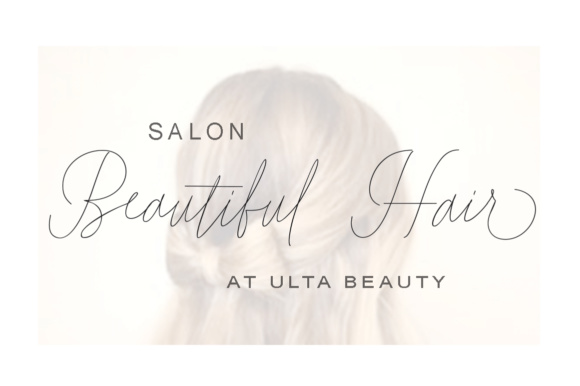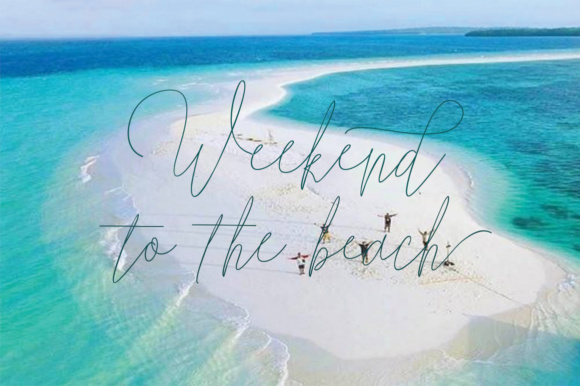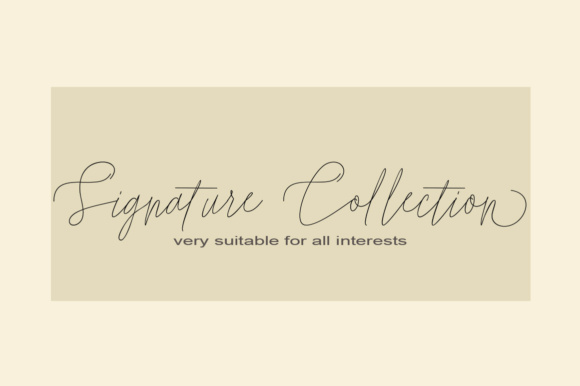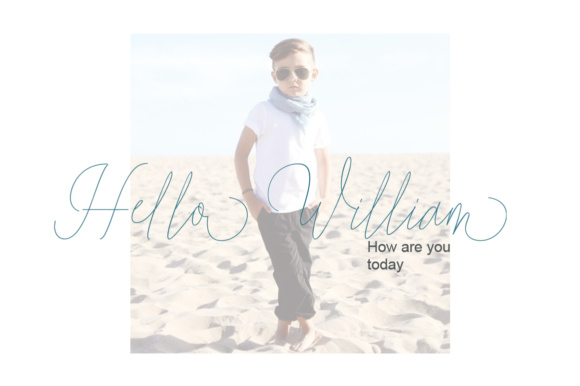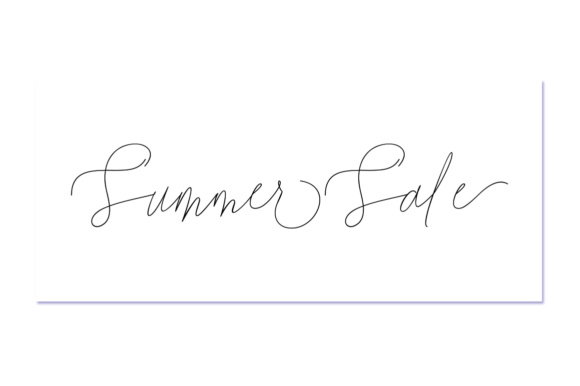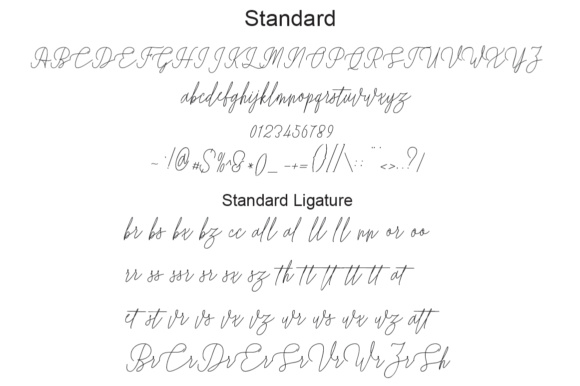
Shattuck Font
About Shattuck Font
Shattuck is a handwritten font, perfect for giving your designs a sophisticated and restrained appeal. This thin, monoline script is supremely modern, and works well to give your designs a stylish signature appeal.